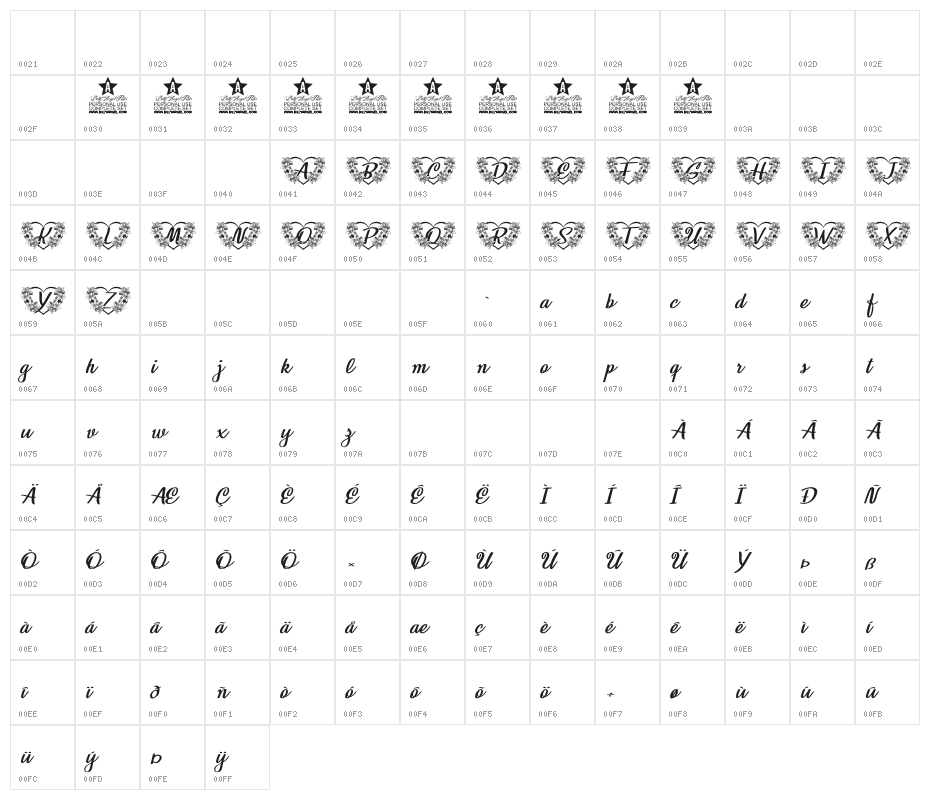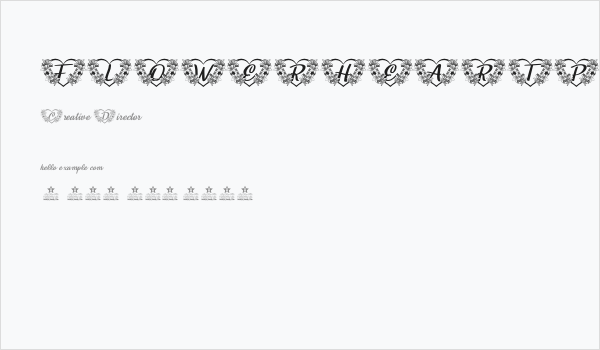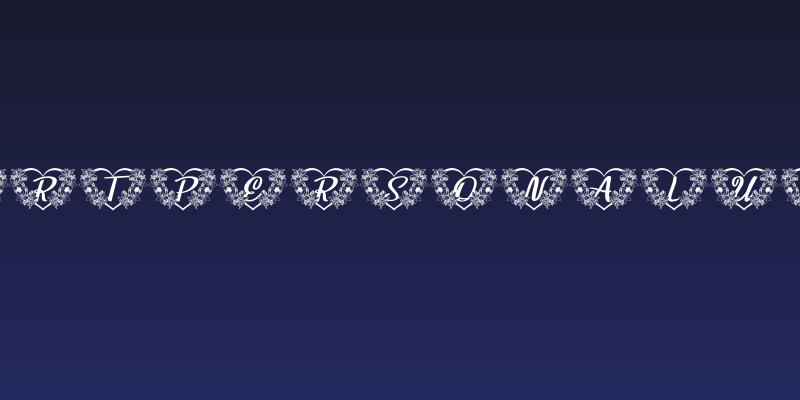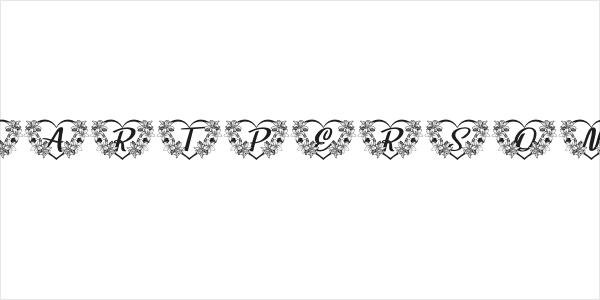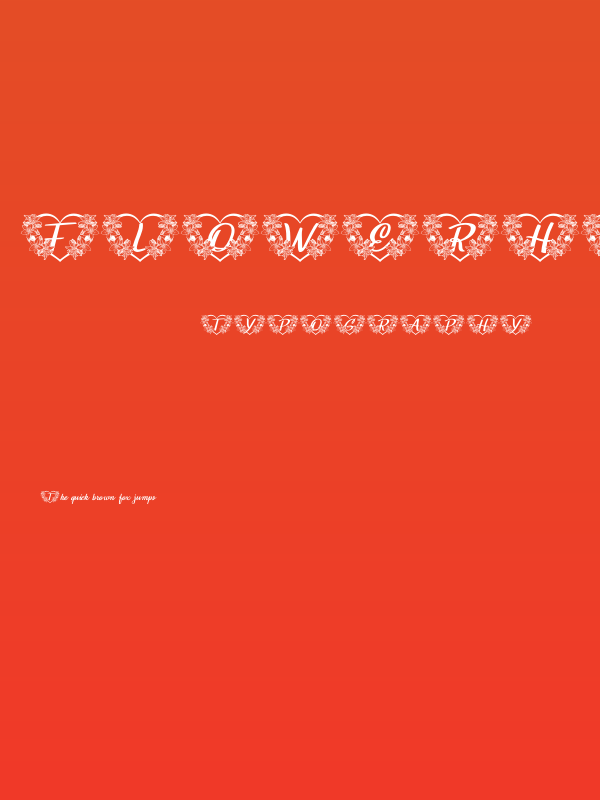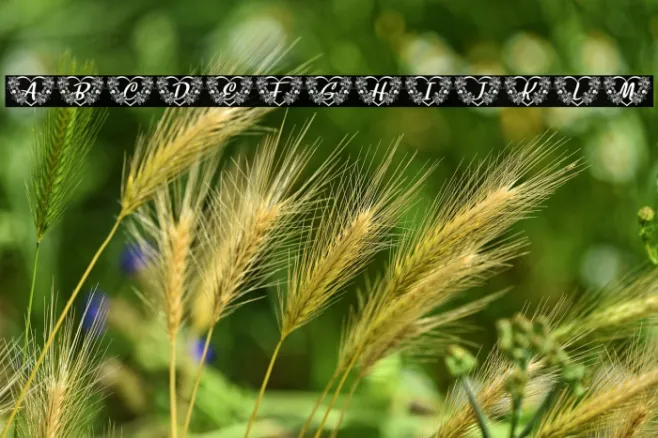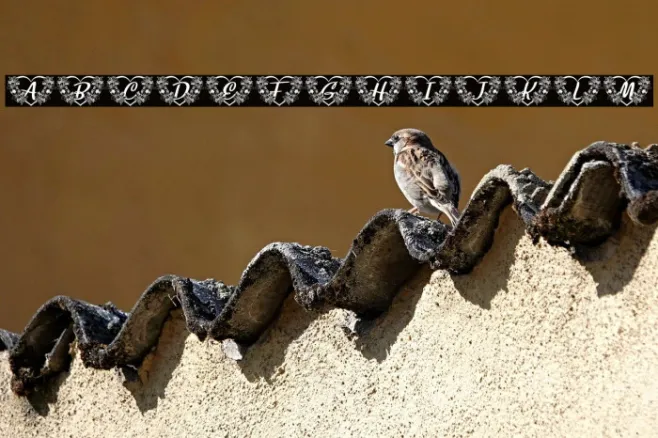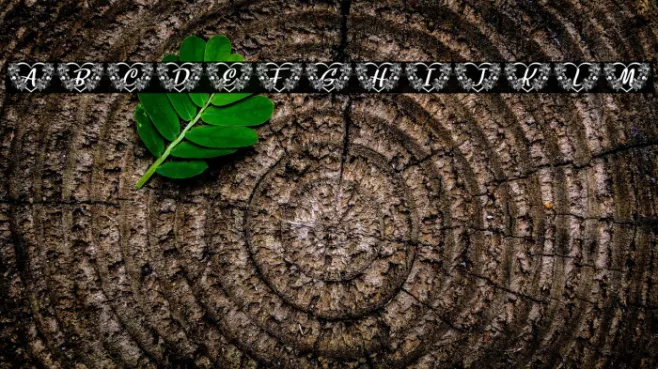
FLOWERHEARTPERSONALUSE-Regular Font
FLOWERHEARTPERSONALUSE-Regular Description
This font features a decorative and artistic style, combining floral and heart motifs with elegant script lettering. The uppercase letters are adorned with intricate floral designs, creating a visually appealing and ornate appearance. The lowercase letters are smooth and flowing, with a cursive style that adds a touch of sophistication. This font is ideal for creative projects that require a romantic or whimsical touch. The overall design is both playful and elegant, making it suitable for a variety of uses.
| Proposed Projects | Ideal for wedding invitations, greeting cards, branding, and decorative posters. |